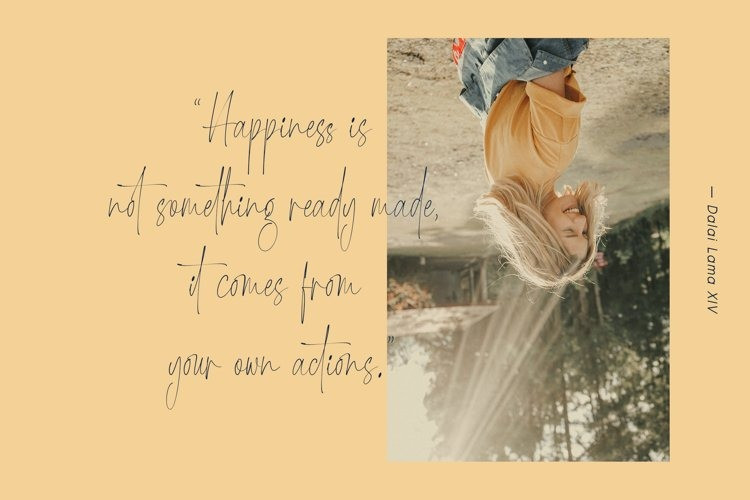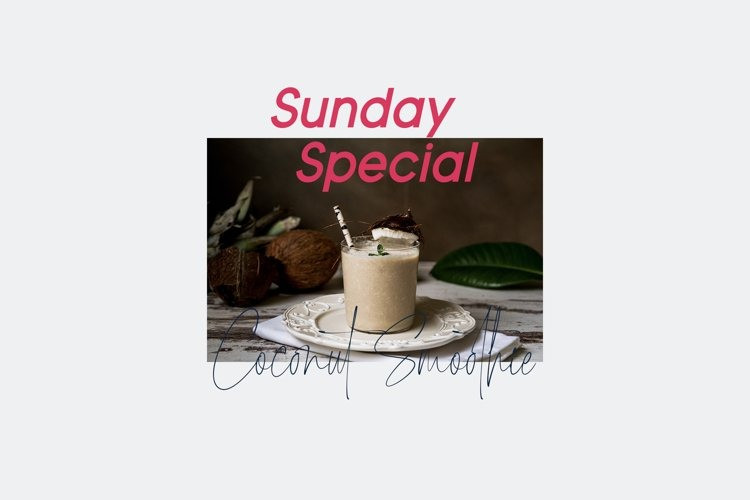
Bartender And Cocktail Font
Bartender And Cocktail Font, Ideal for logos, handwritten quotes, product packaging, header, poster, merchandise, social media & greeting cards.